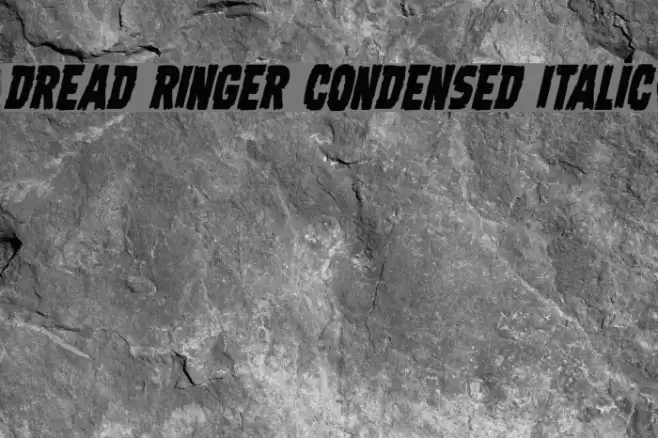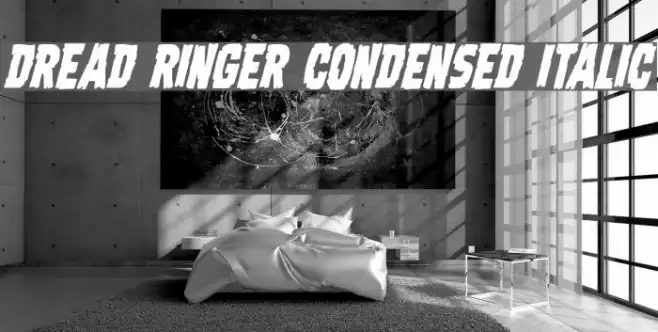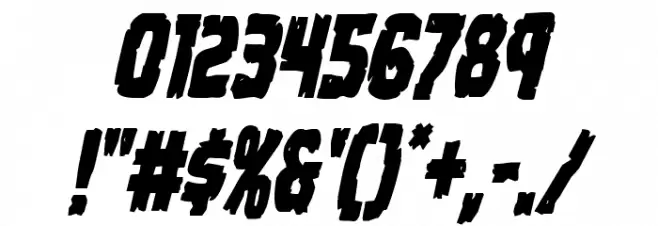
Dread Ringer Condensed Italic Font
Dread Ringer Condensed Italic Description
This font features a bold and dynamic style with a condensed and italicized form. The characters have a rugged, distressed appearance, giving them a unique and edgy look. The uppercase letters are prominent and assertive, while the lowercase letters maintain the same boldness. Numbers and special characters are designed to match the overall aesthetic, making them suitable for impactful designs. The font's condensed nature allows for efficient use of space, making it ideal for headlines and attention-grabbing text.
A bold, condensed, and italicized font with a rugged, distressed style from Horror fonts.
- Proposed Projects: Ideal for posters, album covers, branding for edgy products, or any design requiring a strong, impactful presence.
- Character Spacing: Tight